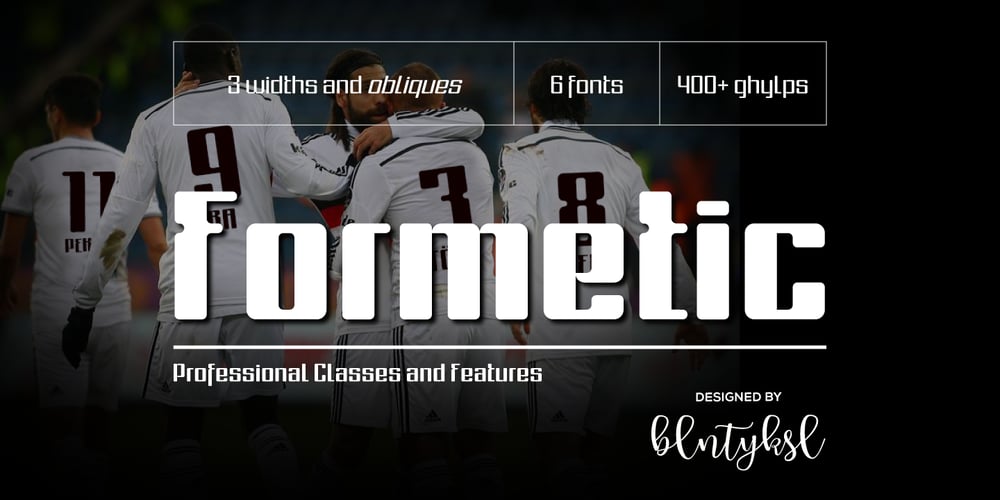
Formetic
Formetic font
Formetic Font Family was designed by Bülent Yüksel and published by Bülent Yüksel. Formetic contains 6 styles and family package options. The Formetic family can be used for logos, advertising slogans, posters and banners,etc. Designed for use in many different kinds of materials. The design is Sans-serif, modern, geometric and I created digital fonts when designing this first for numbers and players names for a football team. Formetic comes in 6 styles, 3 weighted with corresponding Oblique versions.